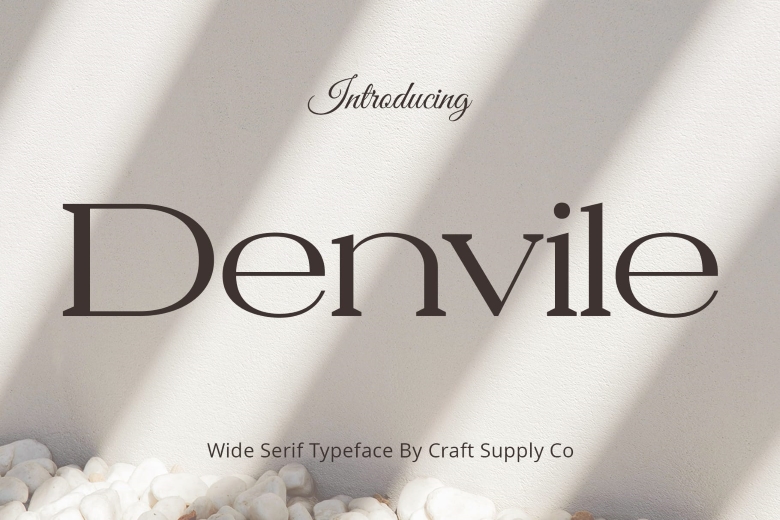
Denvile Font
Denvile Font, arrives as a wide serif font or a blend of daring and elegance, which plays harmonious music to the eyes and demands attention. Book Embellishment Designed specifically for those seeking to hone the art of editorial, Denvile creates an ideal background for text to harmonize with. Enlarging It makes each letter’s width increase the font’s overall appeal, bringing an inherent charm into the font that is perfect for the sophisticated projects only.
Versatility in Vogue Over and above being an exemplary editorial solutions provider, Denvile is a versatile enigmatic gem that relatively transcends the print design domain and comfortably applies itself to a wide spectrum of design genres, ranging from print design for conventional media and new media.
Conclusion Denvile – As it has been pointed out, Wide Serif is not only the font, but also the design. Its bold strokes and conveying attitude causes it to change the frontiers of wide serif typography in terms of the elegance and versatility it brings into the table. Step up your designs with the broad appeal of Denvile.
Denvile Serif Font